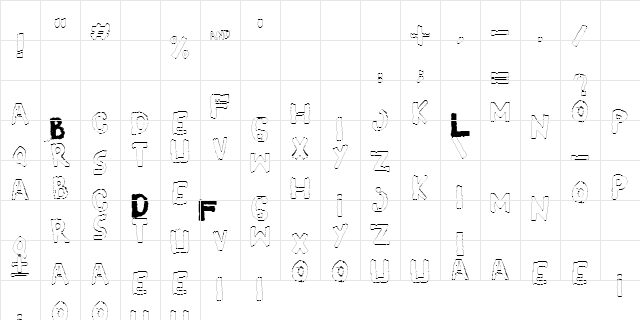
YES_outlineshaken Regular
Design Context for YES_outlineshaken Typeface
YES_outlineshaken brings ornamental detail and strong personality to headlines and identities, where visual impact matters more than quiet functionality.
Font Pairing: Pair with a clean neutral sans-serif for body copy to let YES_outlineshaken's character lead without overwhelming the composition.
Pro Tip: Treat YES_outlineshaken as the centrepiece of your typographic hierarchy. One strong heading set in a decorative face can carry an entire layout.